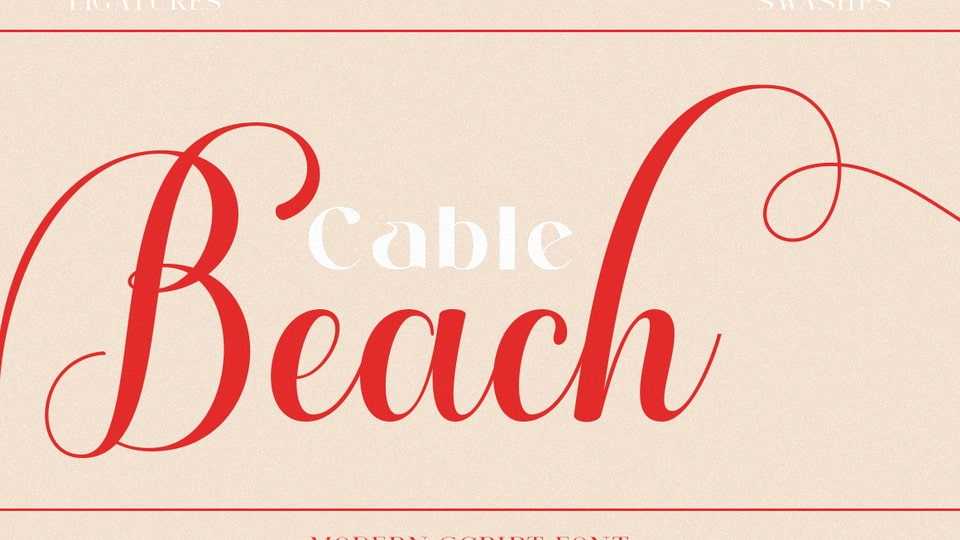
Download Cable Feach font, is an elegant calligraphy script, it’s casual and pretty. Can be used for various purposes. such as logos, product packaging and so on.